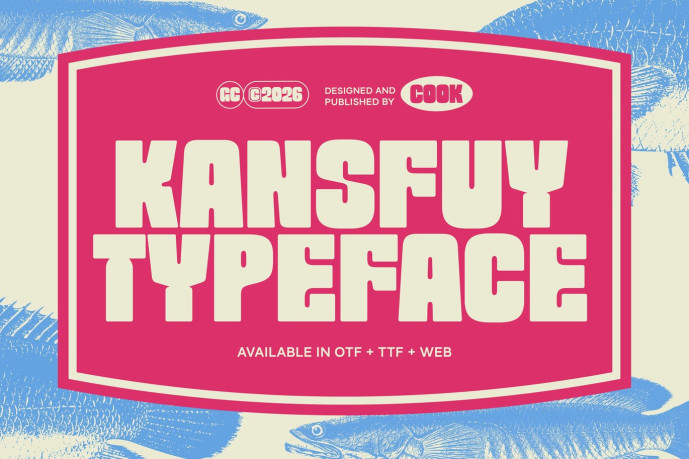
Kansfuy is a bold display font with strong, expressive letterforms designed to create a striking and personality-filled visual presence. It’s perfect for grabbing attention in a wide range of design compositions.
It is perfect for headlines, logotypes, magazines, packaging, quotes, movies, games, cover albums, book covers, and flyers, it’s a perfect solution for creating eye-catching designs that stand out in any context.